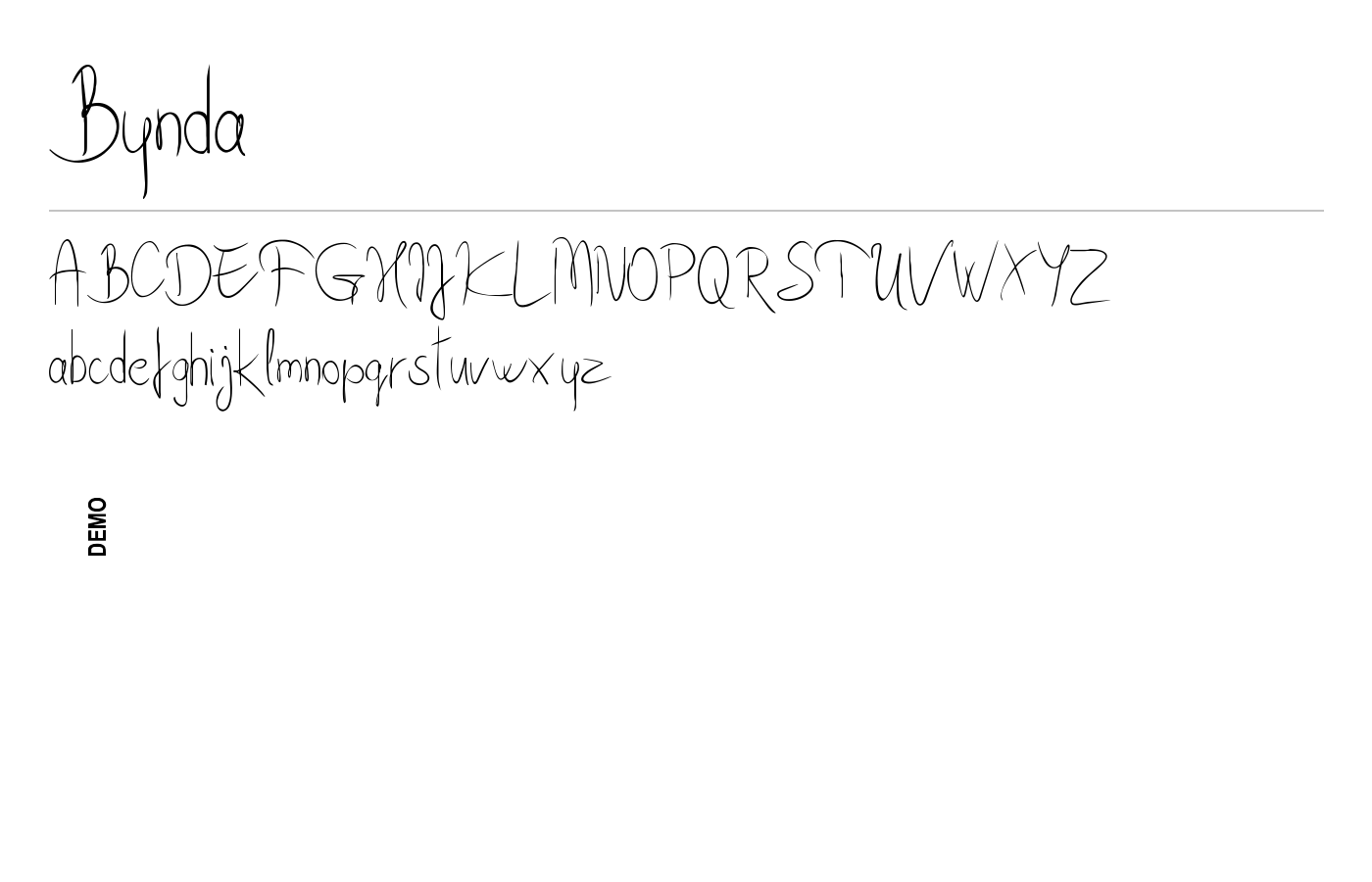
Bynda is a delicate, hand-drawn script font with a tall, narrow structure and thin, flowing strokes that give it an airy and whimsical feel. Its irregular, playful letterforms make it ideal for creative projects, invitations, and branding that seeks a personal, artistic touch. This font works best for headlines and decorative uses where a light, elegant, and informal style is desired.
Bynda Font
About Bynda Font